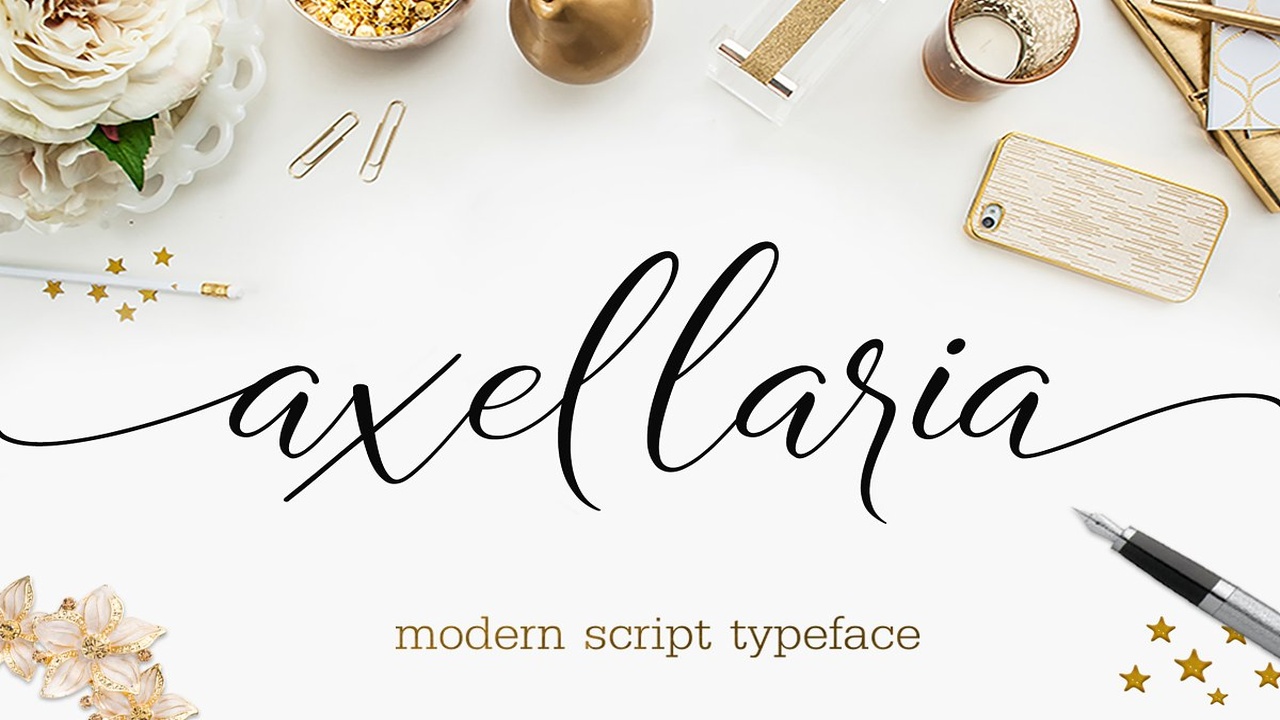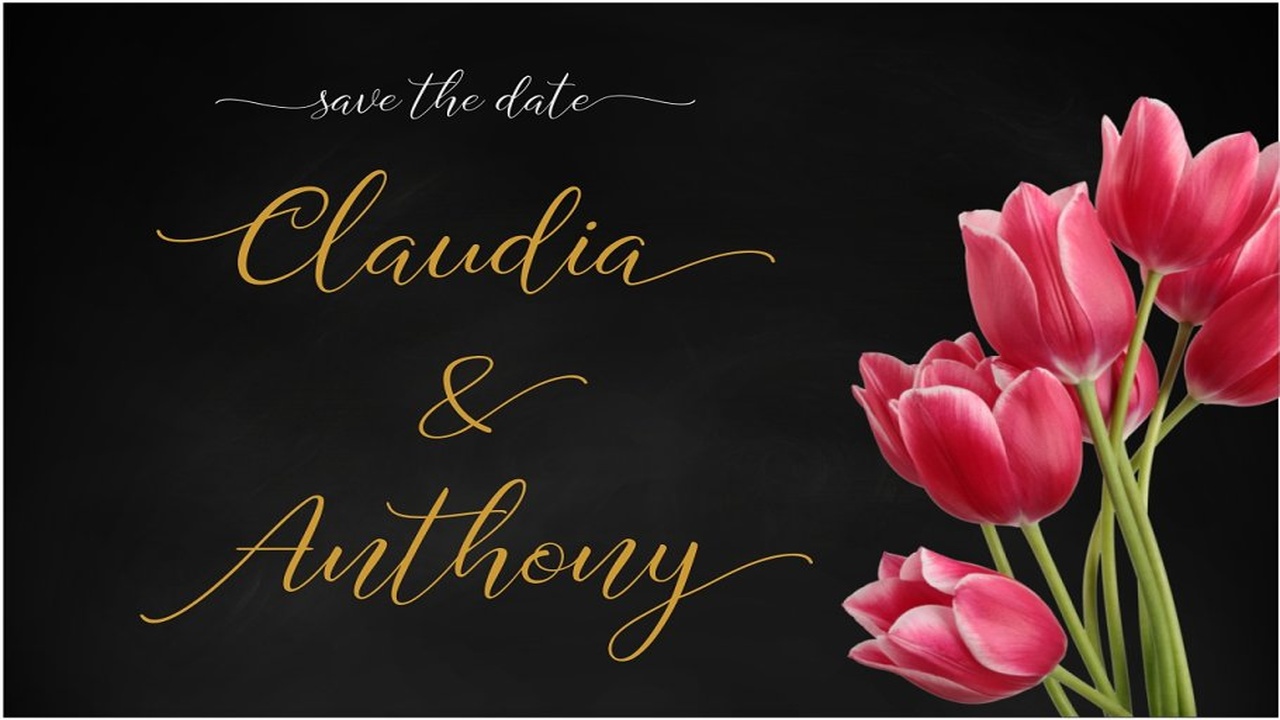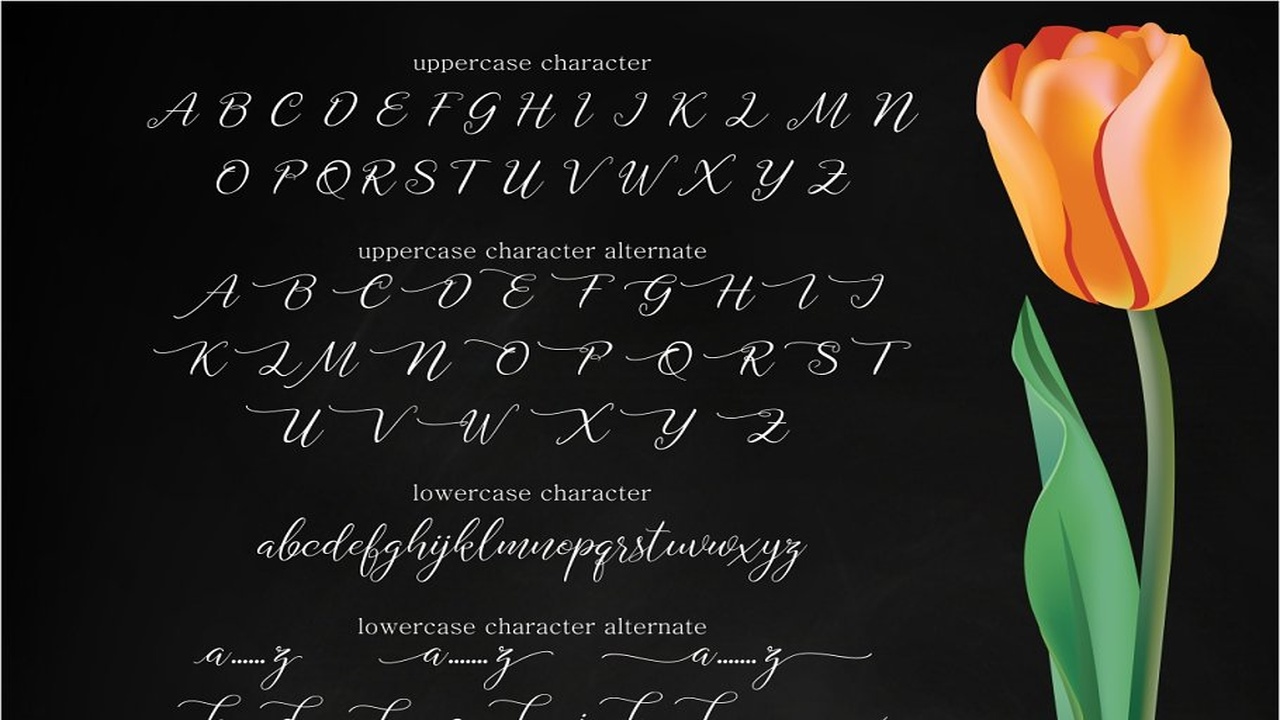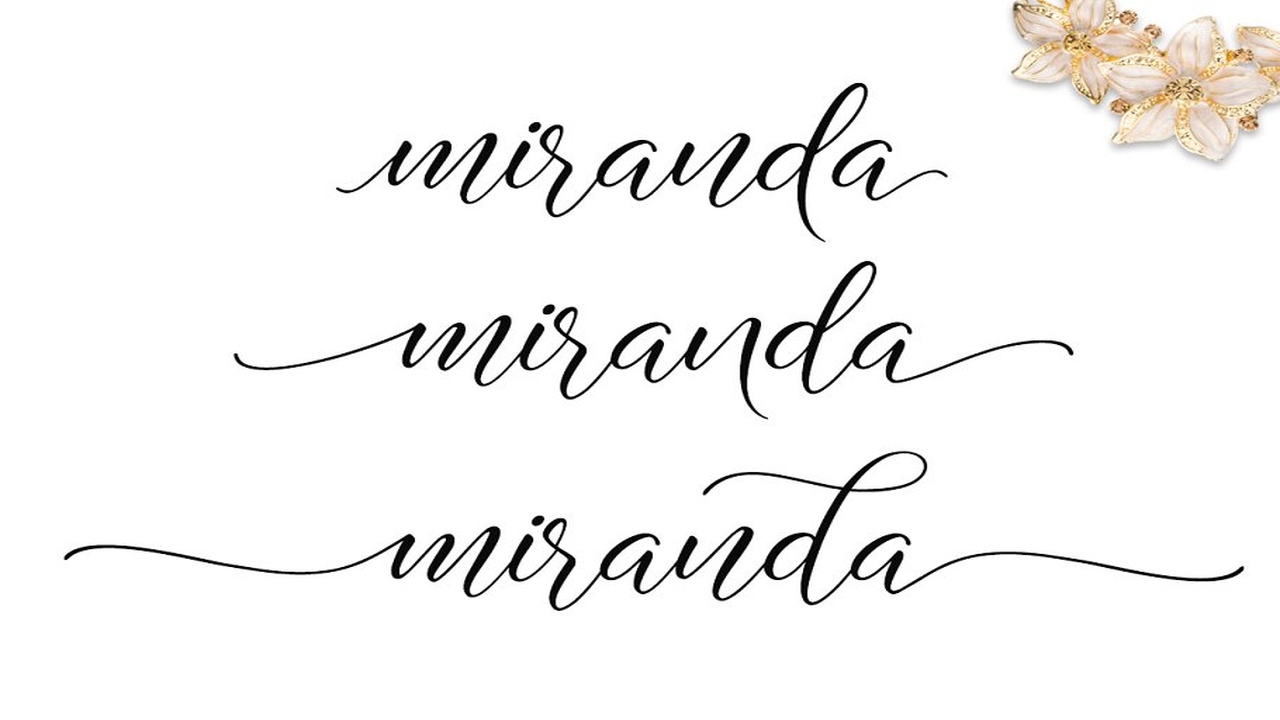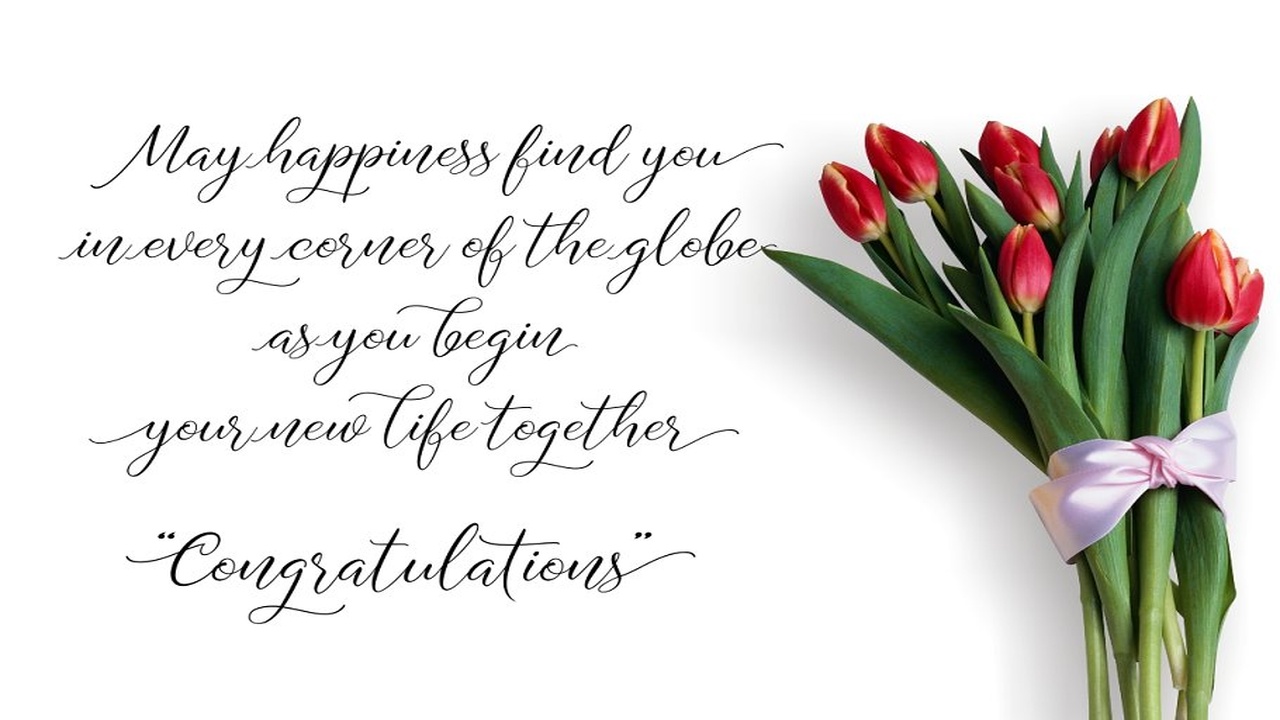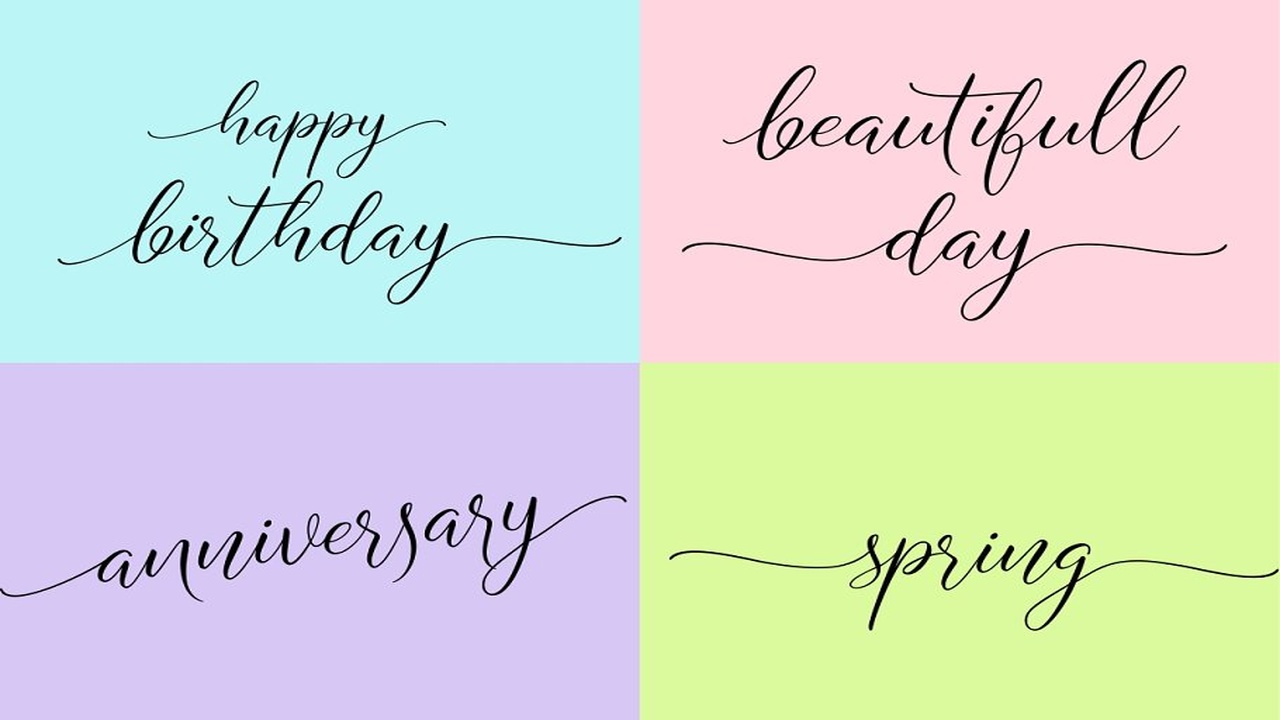
About the Axellaria Font
Axellaria- a new fresh & modern script with a sweet calligraphy-style, decorative characters and a dancing baseline! So beautiful on invitation like greeting cards, branding materials, business cards, quotes, posters, and more!Also supports in program, Adobe IllustratorCS, Adobe IllustratorCc, Adobe Photoshop, Adobe InDesign, Corel Draw X version, Microsoft WordFile include:Axellaria